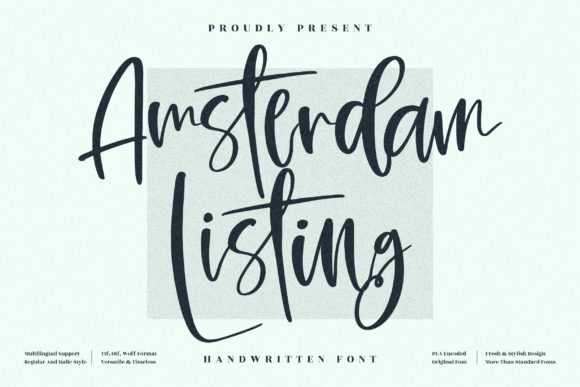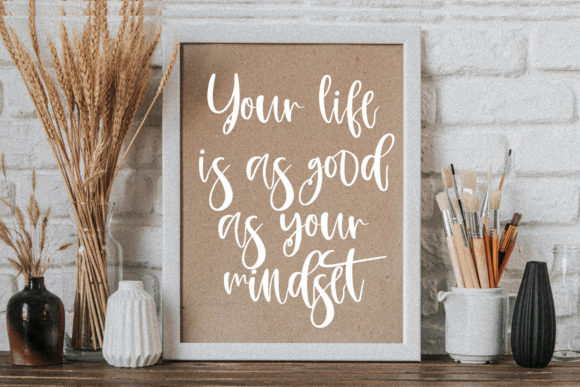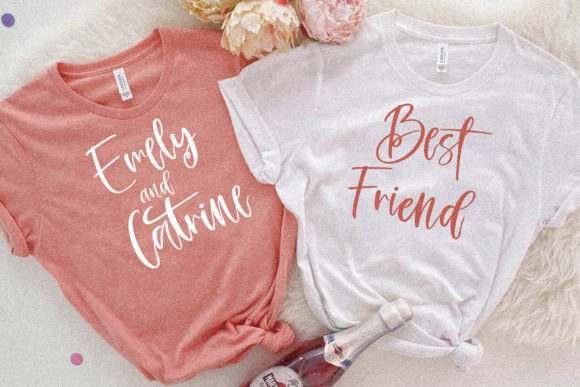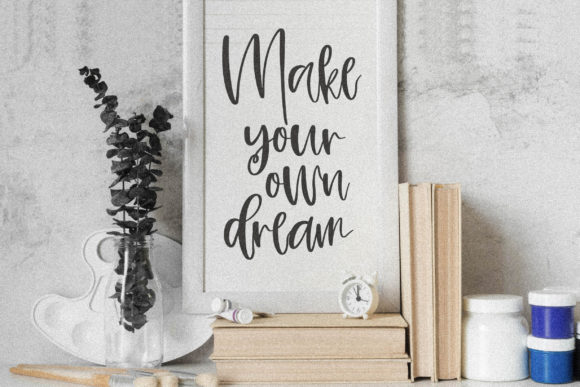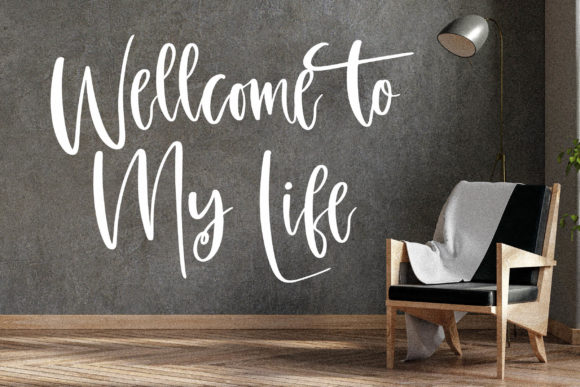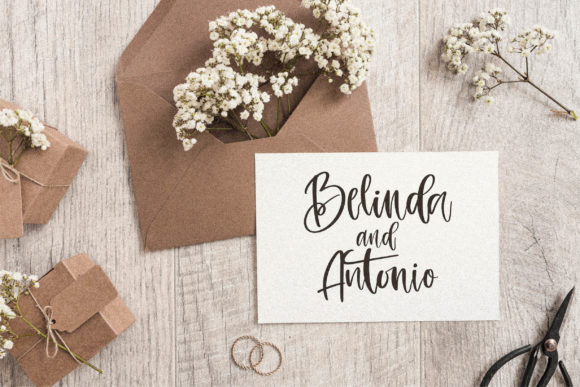
About Amsterdam Listing Font
Amsterdam Listing is a whimsical script font with a relaxed theme, featuring a lovely style. No matter the topic, this font will be an incredible asset to your fonts’ library, as it has the potential to elevate any creation.